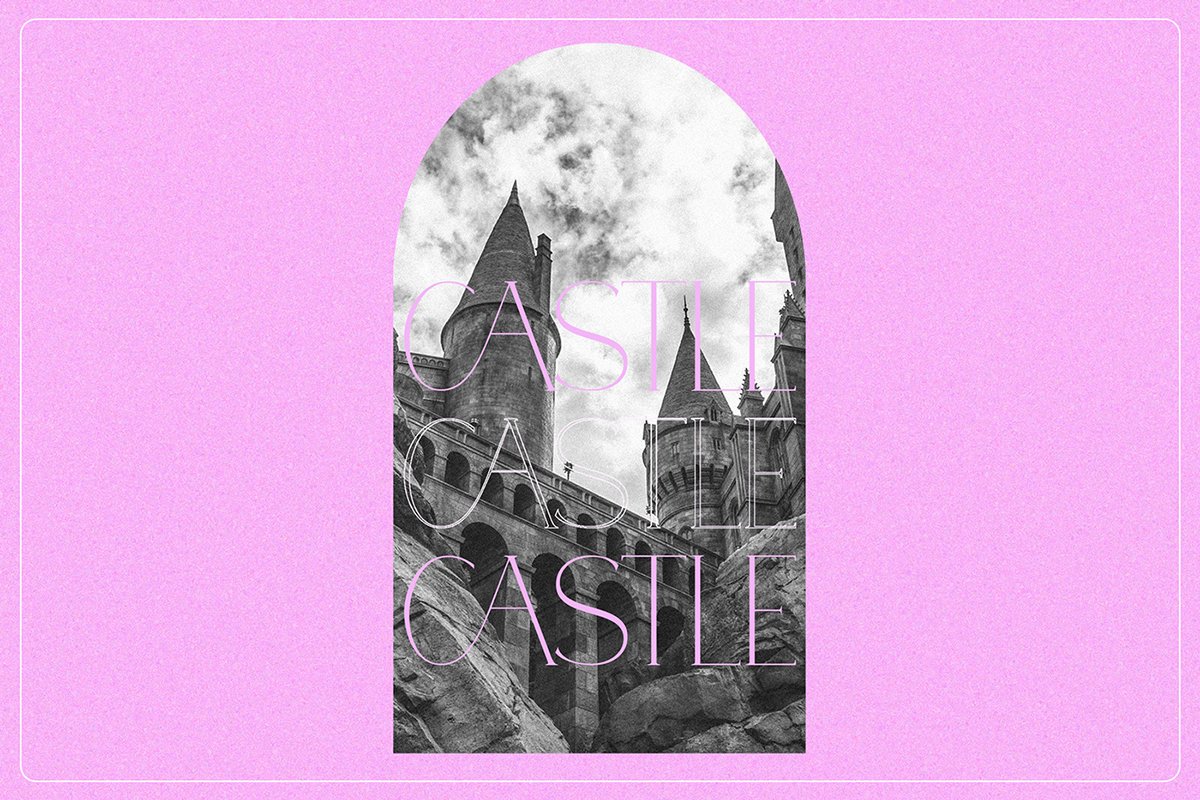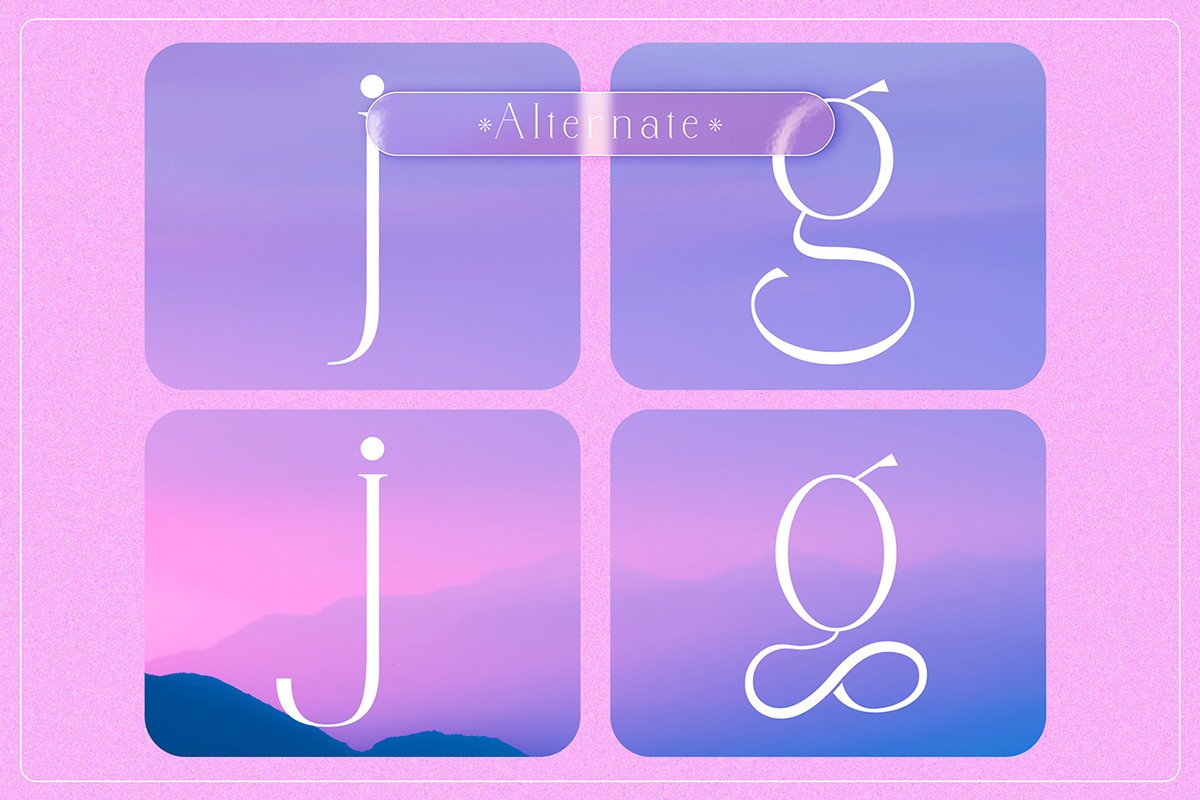
Polyglot Serif Typeface is a unique and fashionable font with tons of ligatures uppercase and lowercase. It has support characters for multilingual languages. With its combination of straight lines and slight curve, makes polyglot look minimalist and elegant.
Polyglot